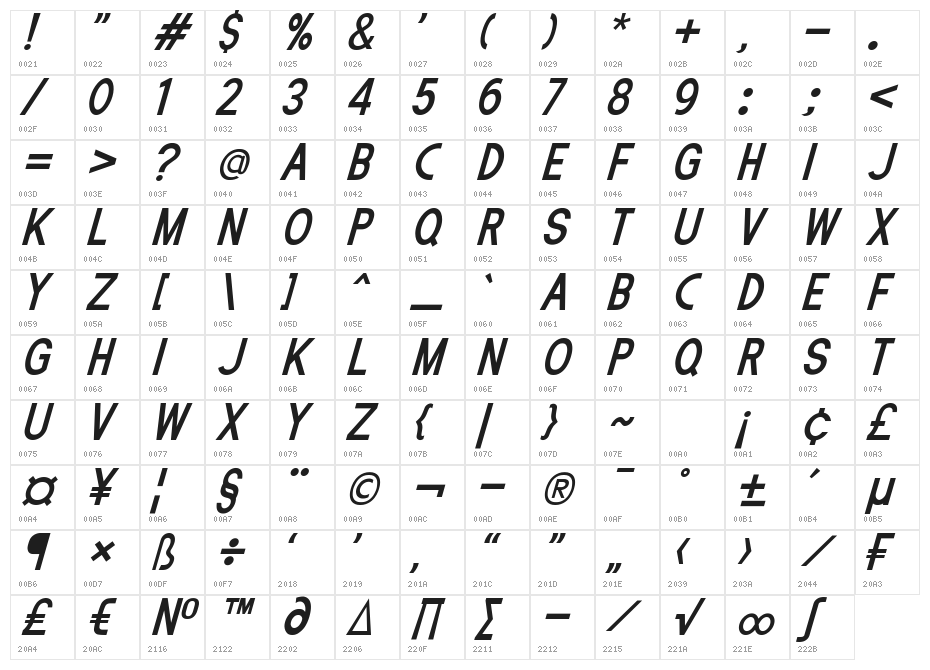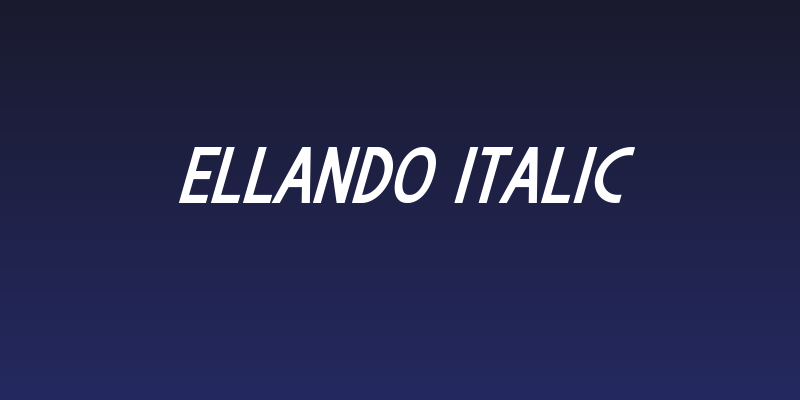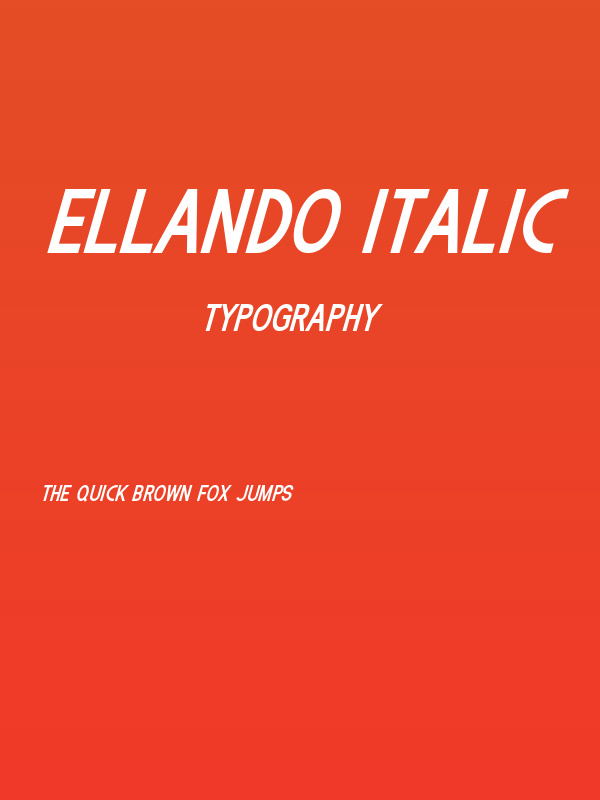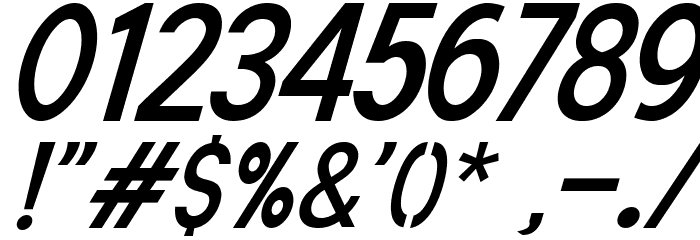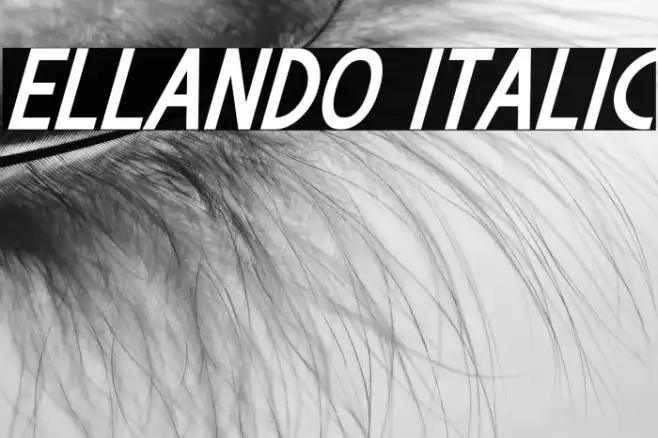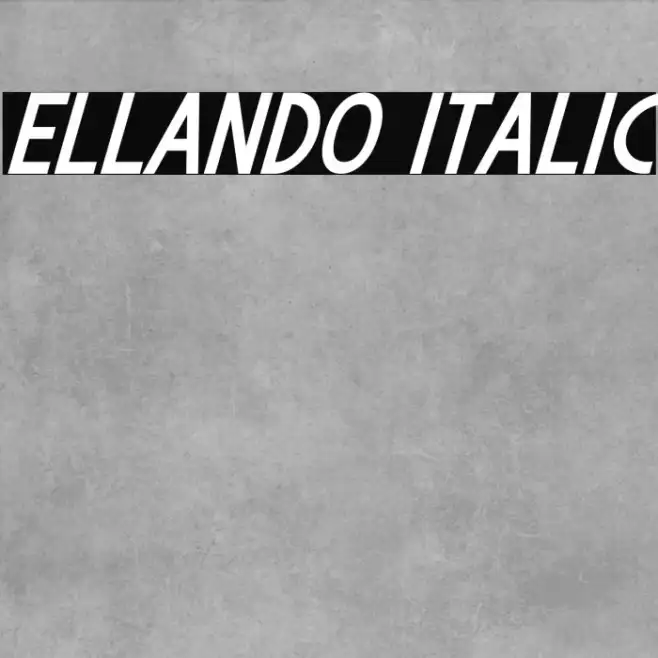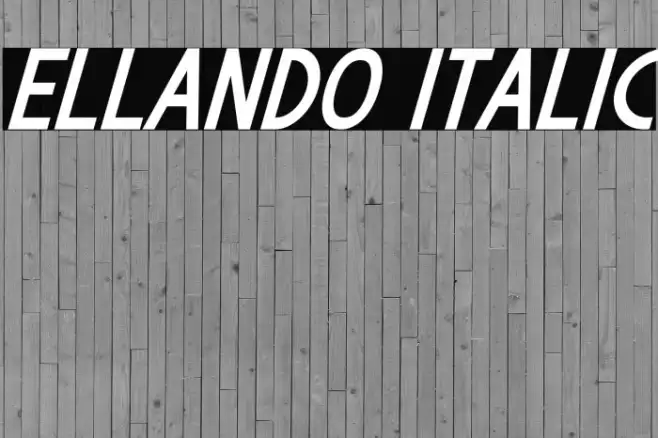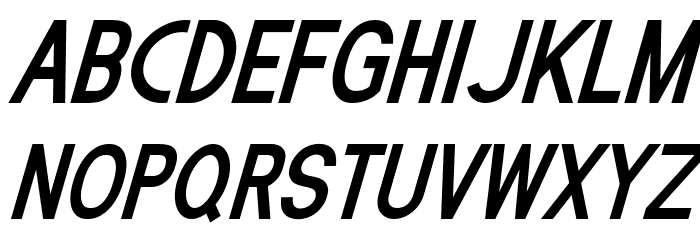
Ellando Italic Font
Ellando Italic Description
This font features a sleek, italicized design with smooth curves and a modern aesthetic. The letters are slightly slanted, giving a dynamic and forward-moving appearance. The characters are well-proportioned, with a consistent stroke width that maintains readability while adding a touch of elegance. The numerals are clear and distinct, matching the style of the alphabetic characters. Special characters are included, maintaining the same stylistic features. Overall, this font combines modernity with a classic italic flair, making it versatile for various design needs.
| Use Case | Headlines, Logos, Advertising |
| Proposed Projects | Ideal for branding, advertising, and editorial design where a modern and elegant touch is desired. |